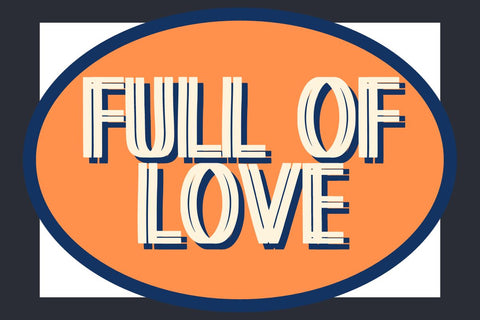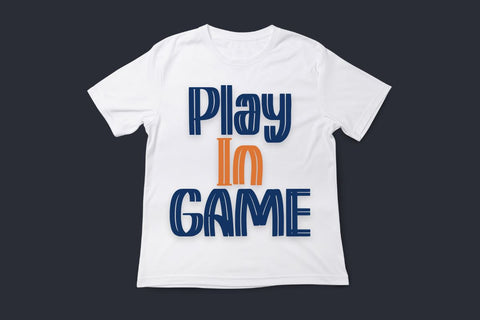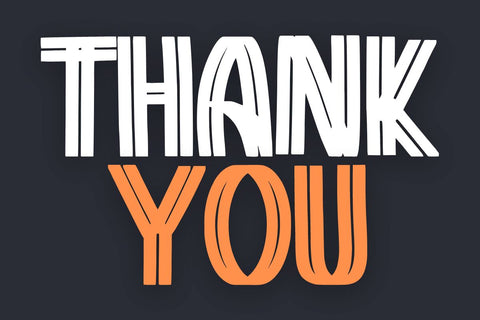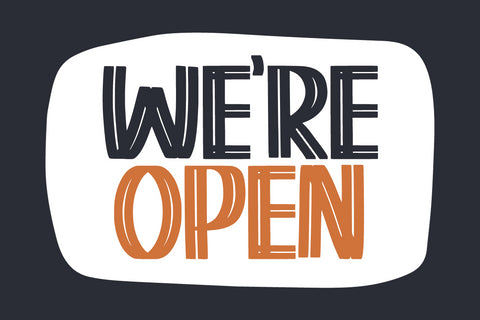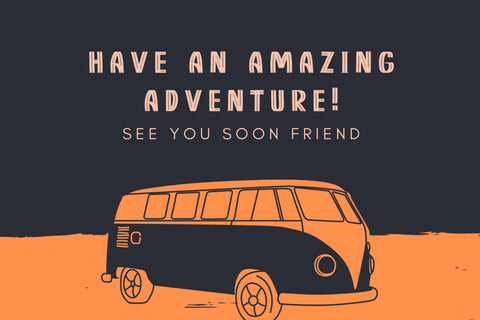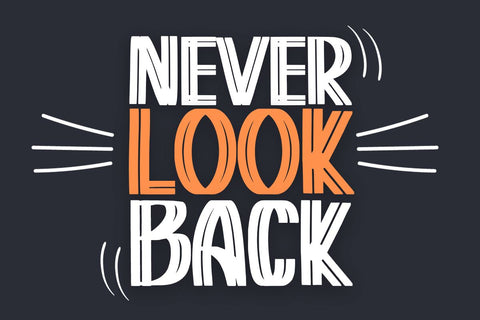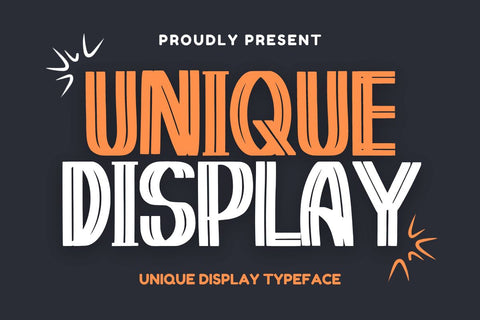
Unique Display - Unique Display Typeface
Hi, Introducing Unique Display - Unique Display Typeface
Unique Display Typeface with a very unique and fun style. This font is cool for quotes, mugs, posters, decorations, pillows, etc